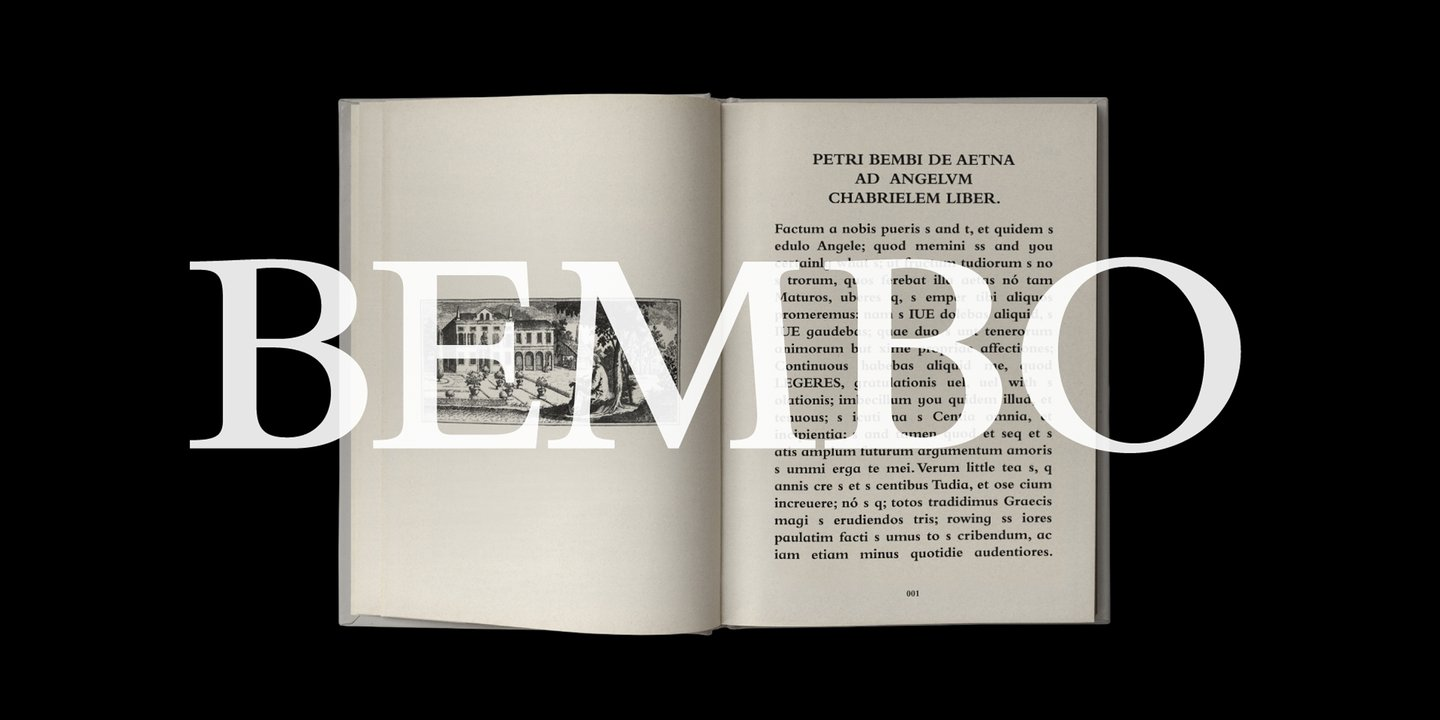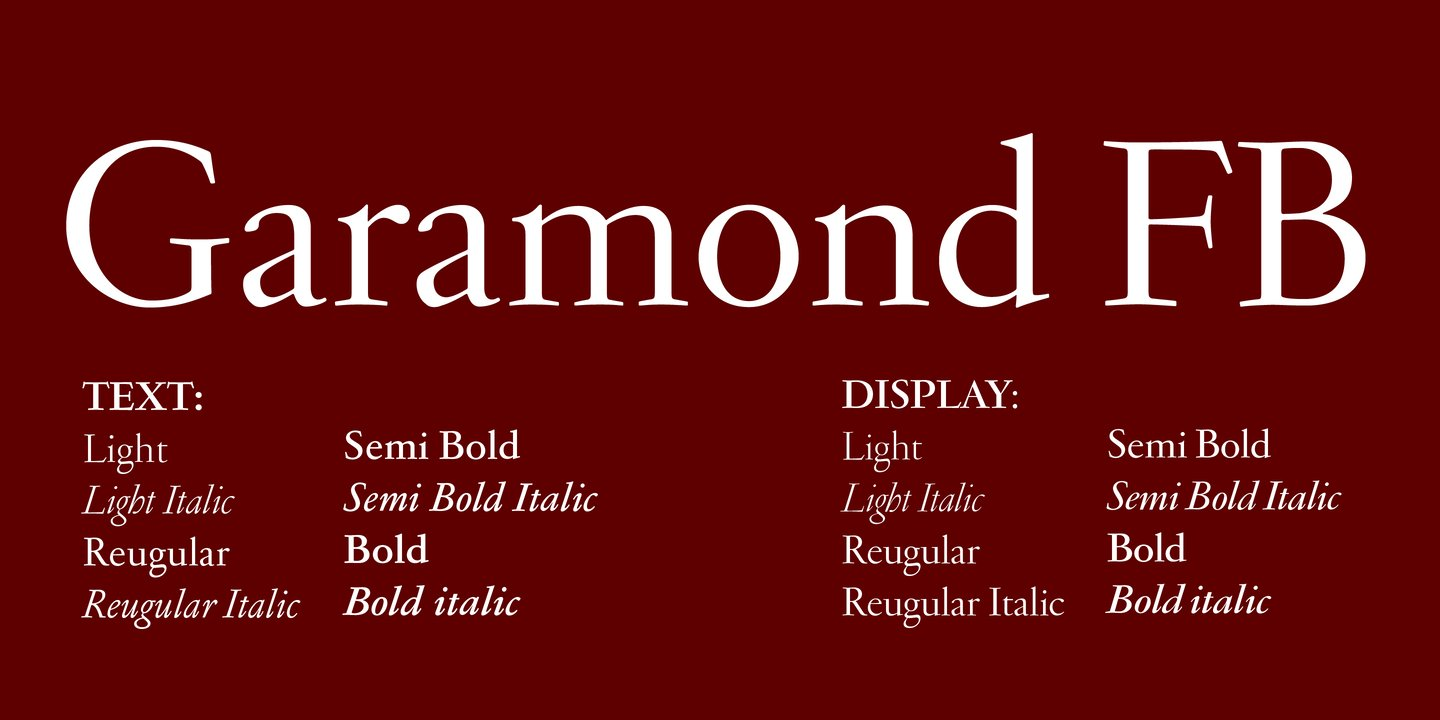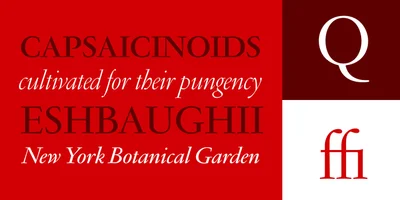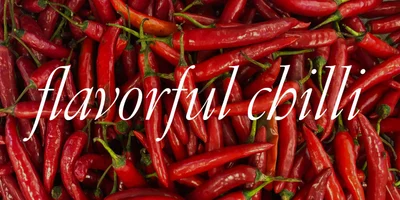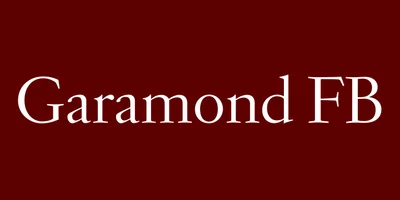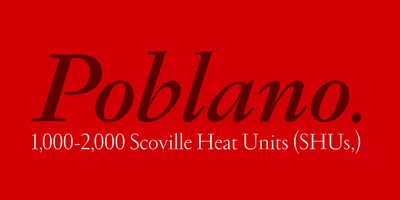
Bembo vs Garamond FB
Bembo and Garamond FB are both serif typefaces sharing a elegant foundation. Where Bembo leans old style, academic, Garamond FB brings retro, readable. Compare which suits your Books project.
68% Similarity
Design overlap:20%
Bembo
Old Style
Elegant
Academic
Garamond FB
ElegantRetroReadable
| Feature | Bembo | Garamond FB |
| Source | Monotype | Font Bureau |
Recommended: Bembo
- old style, academic design character
- Suited for Academic and Luxury
- From monotype
Consider: Garamond FB
- retro, readable design character
- Suited for Print
- From font-bureau